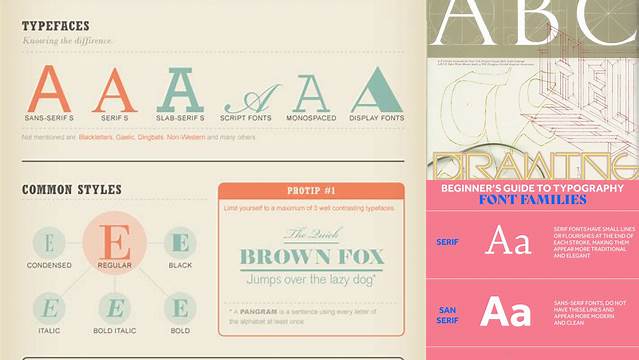
Fonts Lettering Design: A Comprehensive Guide
Hey guys! Ever wondered how to make your text pop? Well, you've come to the right place! This guide is all about fonts lettering design, and we're going to dive deep into everything you need to know to create stunning visual text. Let’s get started!
1. Understanding the Basics of Fonts
So, what exactly are fonts? Simply put, fonts are the styles or designs of text characters. Think of them as different outfits for your letters! There are thousands upon thousands of fonts available, each with its own unique personality and flair. From the formal elegance of Times New Roman to the playful curves of Comic Sans (yes, even Comic Sans has its place!), understanding the basics of fonts is crucial for any designer. Fonts can convey emotion, set the tone, and even influence the reader's perception of your message. When choosing fonts, consider your target audience and the overall purpose of your design. Are you designing a wedding invitation? A sleek, modern sans-serif font might be perfect. Creating a poster for a kids' party? A fun, bubbly display font could be just the ticket. The world of fonts is vast and exciting, and mastering the basics is the first step towards creating truly memorable designs. Don't be afraid to experiment with different fonts and find what works best for you. Remember, the right font can make all the difference!
2. Exploring the Art of Lettering
Now, let's talk about lettering! Unlike fonts, which are pre-designed character sets, lettering is the art of drawing letters by hand. It's a more personalized and expressive form of typography. Think of it as calligraphy's cool cousin! Lettering allows you to create unique and bespoke designs that perfectly capture your vision. There are no limits to what you can create with lettering. You can experiment with different styles, from elegant scripts to bold block letters. You can add flourishes, shadows, and textures to create truly one-of-a-kind designs. While fonts are great for efficiency and consistency, lettering offers a level of creativity and personalization that simply can't be matched. If you're looking to add a personal touch to your designs, lettering is the way to go. It takes practice and patience, but the results are well worth the effort. So grab your pen and paper, and start exploring the wonderful world of lettering!
3. Font Styles: Serif vs. Sans-Serif
Okay, let's break down the most fundamental font styles: serif and sans-serif. Serif fonts, like Times New Roman or Georgia, have little decorative strokes (called serifs) at the ends of their letters. They're often seen as traditional, formal, and easy to read in large blocks of text. Sans-serif fonts, on the other hand, like Arial or Helvetica, don't have those little strokes. They're considered modern, clean, and often used for headlines and shorter pieces of text. Choosing between serif and sans-serif fonts depends on the overall look and feel you're going for. Serif fonts can add a touch of elegance and sophistication, while sans-serif fonts can create a more contemporary and minimalist vibe. It's all about finding the right balance and creating a visual hierarchy that's both aesthetically pleasing and easy to read.
4. Mastering Hand Lettering Techniques
Ready to get your hands dirty? Hand lettering is where the magic happens! It's all about creating beautiful letterforms with your own two hands. There are tons of techniques to explore, from brush lettering to calligraphy to faux calligraphy. Brush lettering uses brush pens to create thick and thin strokes, resulting in elegant and flowing letterforms. Calligraphy, with its origins in ancient writing traditions, uses specialized pens and techniques to create precise and decorative letters. Faux calligraphy is a great starting point for beginners, as it involves drawing the outlines of letters and then filling them in to create the illusion of brush strokes. No matter which technique you choose, practice is key. Start with the basics, learn the fundamental strokes, and gradually experiment with different styles and embellishments. Hand lettering is a skill that takes time and dedication, but the results are incredibly rewarding. The ability to create your own unique letterforms opens up a world of creative possibilities!
5. Digital Lettering with Tablets
For those of you who prefer a more digital approach, digital lettering is the way to go! With a graphics tablet and software like Procreate or Adobe Illustrator, you can create stunning letterforms on your computer or iPad. Digital lettering offers a lot of advantages, such as the ability to easily edit and undo mistakes, experiment with different colors and textures, and create complex effects with just a few clicks. Plus, you can easily share your work online and collaborate with other designers. There are tons of resources available to help you get started with digital lettering, from online tutorials to workshops to design communities. The learning curve can be a bit steep at first, but once you get the hang of it, you'll be amazed at what you can create. So grab your tablet and stylus, and start exploring the exciting world of digital lettering!
6. Combining Fonts and Lettering
Here's a pro tip: don't be afraid to mix fonts and lettering in your designs! Combining the precision and consistency of fonts with the unique personality and flair of lettering can create truly eye-catching results. For example, you could use a classic serif font for the body text of your design and then add a hand-lettered headline to draw attention. Or you could use a sans-serif font for the main text and then incorporate some decorative lettering elements to add a touch of whimsy. The key is to find the right balance and create a visual hierarchy that's both harmonious and engaging. Experiment with different combinations and see what works best for you. The possibilities are endless!
7. The Psychology of Font Choice
Believe it or not, font choices can have a significant impact on how people perceive your message. Different fonts evoke different emotions and associations. For example, a bold, all-caps font might convey a sense of urgency or excitement, while a delicate script font might evoke feelings of elegance and romance. Consider your target audience and the overall message you're trying to communicate when choosing fonts. A font that works well for a corporate presentation might not be suitable for a children's book. Do some research on font psychology and learn how different fonts can influence people's perceptions. This knowledge will help you make more informed decisions and create designs that resonate with your audience on an emotional level.
8. Typography Hierarchy and Readability
Typography hierarchy is all about organizing your text in a way that's both visually appealing and easy to read. It involves using different font sizes, weights, and styles to create a clear distinction between headlines, subheadings, and body text. A well-designed typography hierarchy guides the reader's eye through the page and helps them quickly understand the key information. Readability is also crucial. Choose fonts that are easy to read, especially for large blocks of text. Avoid using overly decorative fonts or setting text in very small sizes. Pay attention to line height, letter spacing, and kerning to ensure that your text is comfortable to read. Remember, good typography is invisible. It should enhance the reading experience without drawing attention to itself.
9. Kerning, Tracking, and Leading Explained
Okay, let's get a little technical! Kerning refers to the spacing between individual letters. Adjusting the kerning can improve the overall appearance of your text and make it more readable. Tracking (also known as letter-spacing) refers to the uniform spacing between all letters in a block of text. Increasing the tracking can make text feel more airy and spacious, while decreasing it can make text feel more dense and compact. Leading (pronounced "ledding") refers to the vertical space between lines of text. Adjusting the leading can improve the readability of your text and prevent lines from feeling too cramped or too spaced out. Mastering these three concepts is essential for any serious designer. Pay close attention to kerning, tracking, and leading in your designs, and you'll be amazed at the difference it makes!
10. Font Pairing Strategies
Font pairing can be tricky, but it's essential for creating visually appealing and harmonious designs. The goal is to find two or more fonts that complement each other without clashing. A good starting point is to pair a serif font with a sans-serif font. For example, you could pair a classic serif font like Times New Roman with a modern sans-serif font like Helvetica. Another strategy is to choose fonts from the same font family but with different weights and styles. For example, you could use a bold version of a font for headlines and a regular version for body text. The key is to experiment and see what works best for you. Don't be afraid to try different combinations and break the rules. Ultimately, the best font pairings are the ones that feel right to you.
11. Free vs. Premium Fonts: What to Consider
When it comes to fonts, you have two main options: free fonts and premium fonts. Free fonts are readily available online and can be a great option for personal projects or when you're on a tight budget. However, free fonts often come with limitations, such as limited character sets, lower quality, and restrictive licensing terms. Premium fonts, on the other hand, are typically higher quality, more versatile, and come with more generous licensing terms. They also often include additional features like alternate characters, ligatures, and multilingual support. When choosing between free and premium fonts, consider your specific needs and budget. If you're working on a professional project, investing in premium fonts is usually the best option. However, if you're just starting out or working on a personal project, free fonts can be a great way to experiment and learn.
12. Font Licensing and Usage Rights
Font licensing is a crucial aspect of font usage that many designers overlook. Every font comes with a license that specifies how you can legally use it. Some fonts are free for personal use but require a commercial license for use in projects that generate revenue. Other fonts have more restrictive licenses that limit the number of users, the types of projects you can use them in, or even the geographic locations where you can use them. Before using any font in a project, always read the font license carefully to ensure that you're complying with the terms. Violating a font license can result in legal penalties, so it's always better to be safe than sorry. There are many resources available online that can help you understand font licensing and usage rights. Take the time to educate yourself, and you'll avoid potential problems down the road.
13. Creating Custom Fonts
Feeling ambitious? Why not create your own custom fonts? Creating your own fonts can be a challenging but incredibly rewarding experience. It allows you to express your unique design vision and create fonts that are perfectly tailored to your specific needs. There are several software programs available that can help you create custom fonts, such as FontLab Studio, Glyphs, and FontForge. The process typically involves drawing each character individually, adjusting the kerning and tracking, and then generating the font files. Creating a high-quality font takes time and effort, but the results can be truly amazing. Imagine having your own signature font that you can use in all your projects! It's a great way to stand out from the crowd and establish your unique brand identity.
14. The Importance of White Space in Lettering
White space, also known as negative space, is the empty space around and between your letters. It's just as important as the letters themselves! White space helps to define the letterforms, improve readability, and create a sense of balance and harmony. Too much white space can make your lettering feel disconnected and disjointed, while too little white space can make it feel cramped and overwhelming. Pay close attention to the white space in your lettering designs, and adjust it as needed to create a visually pleasing and easy-to-read composition. Experiment with different amounts of white space to see how it affects the overall look and feel of your designs. You'll be surprised at the difference it makes!
15. Adding Flourishes and Embellishments
Flourishes and embellishments are decorative elements that can add a touch of elegance and personality to your lettering designs. They can range from simple swirls and lines to elaborate floral motifs and geometric patterns. When adding flourishes and embellishments, it's important to use them sparingly and avoid overwhelming the letterforms. The goal is to enhance the lettering, not to distract from it. Consider the overall style and tone of your design when choosing flourishes and embellishments. A formal script font might benefit from delicate floral flourishes, while a modern sans-serif font might look better with simple geometric embellishments. Experiment with different styles and techniques to find what works best for you.
16. Lettering Styles: Script, Blackletter, and More
There are many different lettering styles to explore, each with its own unique characteristics and history. Script lettering is characterized by flowing, cursive-like letterforms and is often used for invitations, announcements, and other formal occasions. Blackletter lettering, also known as Gothic or Old English lettering, is characterized by its bold, angular letterforms and is often used for traditional or historical designs. Other popular lettering styles include sans-serif lettering, and display lettering. Each style has its own set of rules and conventions, but don't be afraid to break the rules and experiment with different approaches. The key is to find a style that suits your personal taste and the overall message you're trying to communicate.
17. Using Color in Fonts and Lettering
Color can play a powerful role in fonts and lettering design. It can be used to create contrast, highlight important information, and evoke different emotions. When choosing colors for your fonts and lettering, consider the overall color palette of your design and the message you're trying to communicate. Bright, vibrant colors can create a sense of excitement and energy, while muted, pastel colors can create a more calming and soothing effect. You can also use color to create visual hierarchy. For example, you could use a bold color for headlines and a more subtle color for body text. Experiment with different color combinations and see how they affect the overall look and feel of your designs.
18. Adding Texture to Lettering
Adding texture to your lettering can create a sense of depth, dimension, and visual interest. There are many different ways to add texture to lettering, from using textured paper and pens to applying digital textures in Photoshop or Illustrator. You can also create textures by hand using techniques like stippling, hatching, and cross-hatching. When adding texture to your lettering, consider the overall style and tone of your design. A rough, gritty texture might be perfect for a vintage-inspired design, while a smooth, subtle texture might be more appropriate for a modern design. Experiment with different textures and techniques to find what works best for you.
19. Creating Drop Caps and Initial Letters
Drop caps and initial letters are decorative elements that can add a touch of elegance and sophistication to your text. A drop cap is a large capital letter that appears at the beginning of a paragraph and extends down into the body text. An initial letter is a similar element, but it doesn't necessarily extend down into the body text. Drop caps and initial letters can be used to draw attention to the beginning of a paragraph, create visual interest, and enhance the overall typography of your design. When creating drop caps and initial letters, consider the overall style and tone of your design. A formal script font might be perfect for a traditional drop cap, while a modern sans-serif font might look better with a simple, geometric initial letter.
20. Lettering for Logos and Branding
Lettering can be a powerful tool for creating memorable and effective logos and branding materials. A well-designed lettered logo can convey the personality, values, and mission of your brand in a unique and visually appealing way. When designing a lettered logo, consider your target audience, the overall brand identity, and the specific message you want to communicate. Experiment with different lettering styles, colors, and textures to find a design that perfectly captures the essence of your brand. Remember, your logo is often the first thing people will see, so make sure it makes a strong and lasting impression.
21. Fonts and Lettering in Web Design
Fonts and lettering play a crucial role in web design. They can impact the readability, usability, and overall aesthetic appeal of your website. When choosing fonts for your website, consider the readability of the fonts on different devices and screen sizes. Choose fonts that are easy to read and that complement the overall design of your website. You can also use lettering to create unique and eye-catching headlines, banners, and other visual elements. Just be sure to optimize your fonts and lettering for web performance to ensure that your website loads quickly and efficiently.
22. Lettering on Merchandise and Apparel
Lettering can be a great way to add a personal touch to merchandise and apparel. Whether you're designing t-shirts, mugs, tote bags, or other products, lettering can help you create unique and eye-catching designs that stand out from the crowd. When lettering for merchandise and apparel, consider the durability and washability of your designs. Choose materials and techniques that will withstand wear and that will hold up well over time. You can also use lettering to promote your brand, express your personality, or share your message with the world.
23. Fonts and Lettering in Print Design
Fonts and lettering are essential elements of print design. They can impact the readability, visual appeal, and overall effectiveness of your printed materials. When choosing fonts for print design, consider the size and weight of the fonts, the type of paper you're using, and the printing process. Choose fonts that are easy to read and that will reproduce well in print. You can also use lettering to create unique and eye-catching headlines, titles, and other visual elements. Just be sure to proofread your designs carefully before printing to ensure that there are no errors.
24. Lettering for Social Media Graphics
Lettering can be a powerful tool for creating engaging and shareable social media graphics. Whether you're designing Instagram posts, Facebook ads, or Twitter banners, lettering can help you capture attention, convey your message, and connect with your audience. When lettering for social media, consider the size and format of the graphics, the platform you're using, and the overall tone of your brand. Use bold, eye-catching lettering to grab attention in the crowded social media landscape. Experiment with different lettering styles, colors, and textures to find a design that resonates with your audience.
25. The Future of Font and Lettering Design
The field of font and lettering design is constantly evolving, with new technologies and trends emerging all the time. From variable fonts to 3D lettering to augmented reality typography, the possibilities are endless. As technology continues to advance, we can expect to see even more innovative and exciting developments in font and lettering design. Stay up-to-date on the latest trends and technologies, and don't be afraid to experiment and push the boundaries of what's possible. The future of font and lettering design is bright, and there's never been a better time to be a designer.
26. Learning Resources for Fonts and Lettering
Want to learn more about fonts and lettering? There are tons of great resources available online and offline. You can find online tutorials, workshops, and courses on websites like Skillshare, Udemy, and CreativeLive. You can also find books, magazines, and articles on typography and lettering at your local library or bookstore. Join online design communities and forums to connect with other designers, share your work, and get feedback. Attend design conferences and workshops to learn from the experts and network with other professionals. The more you learn, the better you'll become at fonts and lettering design.
27. Common Mistakes to Avoid in Font and Lettering
Even experienced designers make mistakes when working with fonts and lettering. Some common mistakes to avoid include using too many fonts in a single design, choosing fonts that are difficult to read, ignoring kerning and tracking, and violating font licenses. Be aware of these common mistakes, and take steps to avoid them in your own designs. Proofread your work carefully, get feedback from others, and always double-check your font licenses before using any font in a project.
28. The Ethics of Font and Lettering Design
As designers, we have a responsibility to use fonts and lettering in an ethical and responsible manner. This includes respecting font licenses, avoiding cultural appropriation, and creating designs that are accessible to everyone. Be mindful of the impact your designs can have on others, and strive to create fonts and lettering that are inclusive, respectful, and ethical. Design with intention, and always consider the potential consequences of your work.
29. Finding Inspiration for Font and Lettering
Need some inspiration for your next font and lettering project? Look around you! Inspiration can be found everywhere, from nature to architecture to everyday objects. Visit museums and art galleries, browse design blogs and websites, and explore different cultures and traditions. Collect examples of fonts and lettering that you find inspiring, and analyze what makes them effective. Don't be afraid to experiment with different styles and techniques, and develop your own unique design voice.
30. Building a Portfolio of Font and Lettering Work
As you gain experience in font and lettering design, it's important to build a portfolio of your best work. Your portfolio is your calling card, and it's what potential clients and employers will use to evaluate your skills and abilities. Include a variety of different projects in your portfolio, showcasing your range of skills and your unique design style. Be sure to include high-quality images of your work, and write detailed descriptions of each project, explaining your design process and the challenges you overcame. Update your portfolio regularly, and keep it fresh and relevant. A strong portfolio is essential for landing your dream job or attracting new clients.
So there you have it, guys! A comprehensive guide to fonts lettering design. Remember to practice, experiment, and have fun! Happy designing!